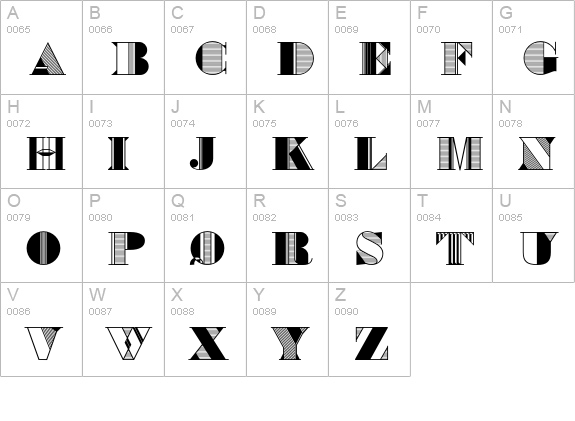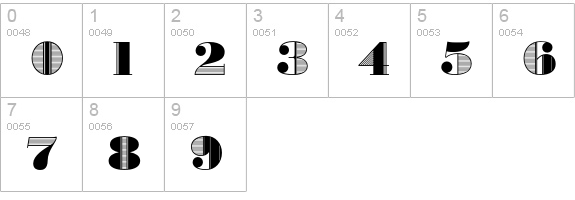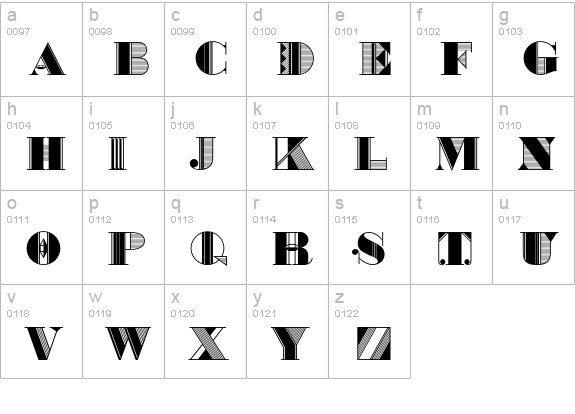
BradleyInitials Font Details
Introducing BradleyInitials font - a stunning display typeface that exudes elegance and sophistication. With its unique blend of vintage charm and modern flair, this font is perfect for adding a touch of class to your designs. Featuring intricate details and stylish letterforms, BradleyInitials is sure to make a statement. Best of all, BradleyInitials font is available for free download at FontsMarket.com. Now you can elevate your projects with this exquisite font without breaking the bank. Whether you're creating invitations, posters, branding materials, or anything in between, BradleyInitials is the perfect choice for adding a touch of timeless beauty. Download BradleyInitials font today and let your creativity shine!